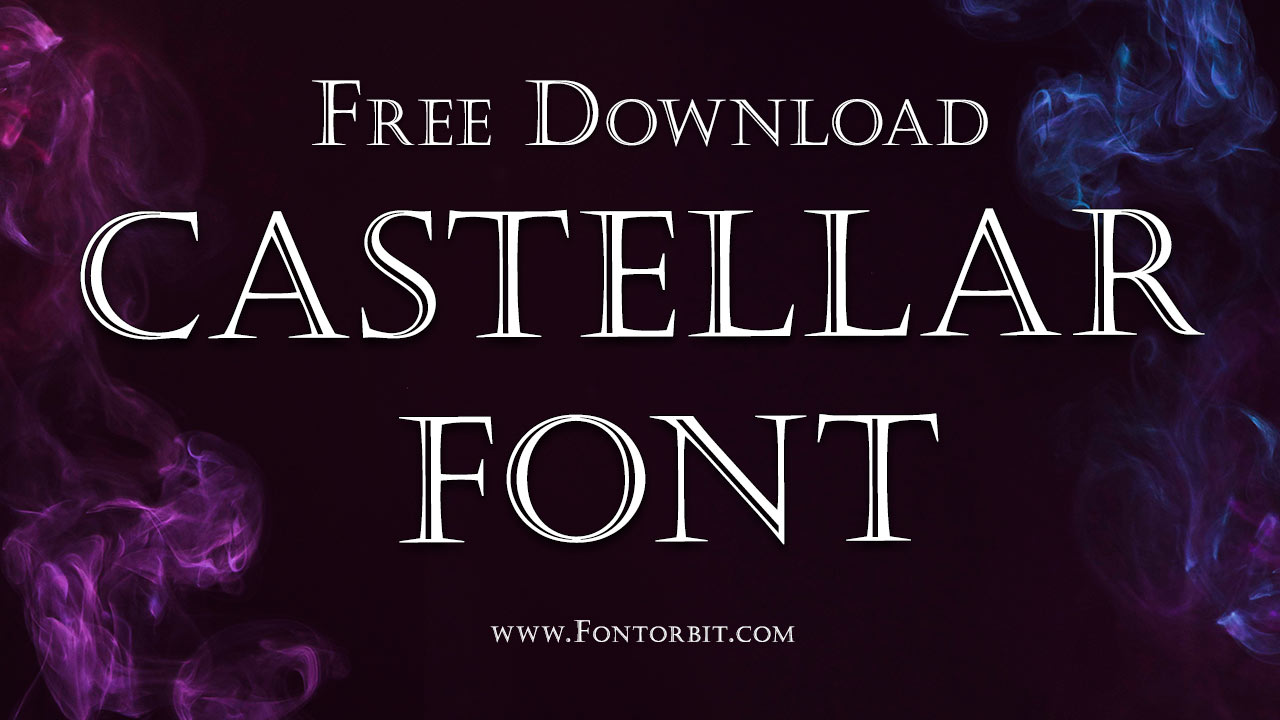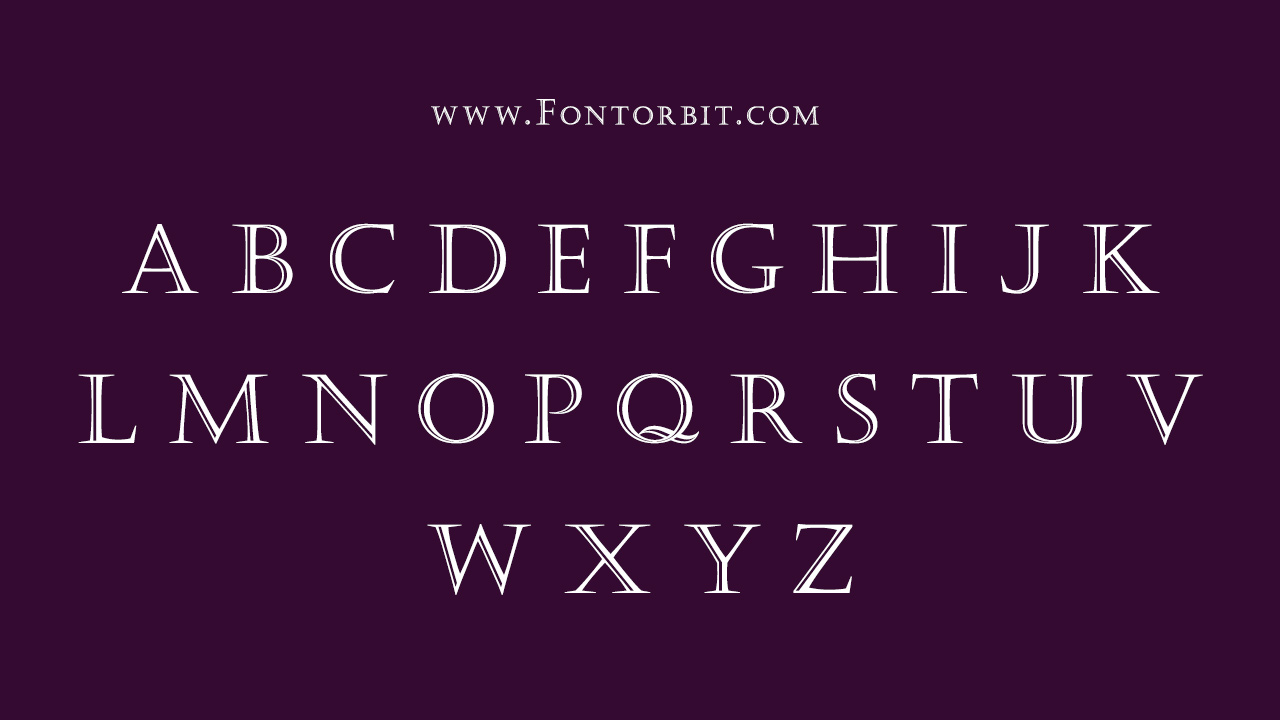
Castellar Font is a distinctive typeface renowned for its elegant and engraved design. Created by John Peters in 1957 for Monotype, this font stands out due to its classic, formal style, making it an ideal choice for titles and display text. With its refined and bold appearance, Castellar adds a touch of sophistication to various design projects.
The Castellar font family includes a single regular style, which features a comprehensive set of characters, including uppercase and lowercase letters, numbers, punctuation marks, and various glyphs.
Castellar Font excels in creating impactful titles, refined display text, and other design elements that require a touch of classic elegance. Its engraved style makes it an excellent choice for adding a formal, sophisticated flair to various types of media.
Castellar Font is a powerful tool in various design contexts due to its bold, formal design. The font works exceptionally well in both digital and print media, making it a versatile choice for designers. Its elegant, refined style integrates seamlessly into a variety of design projects, enhancing the visual appeal and making the content more distinguished.
2.What Is The Origin Of The Castellar Font?
Castellar Font was designed by John Peters for Monotype in 1957. It reflects the early days of phototypesetting and showcases a bold, engraved style that adds a touch of elegance to any design.
4.What Makes Castellar Font Unique?
The unique blend of its elegant, engraved appearance and bold presence makes Castellar Font stand out. Its refined style brings a sophisticated element to design projects, making it a preferred choice for creating impactful and distinguished visual content.